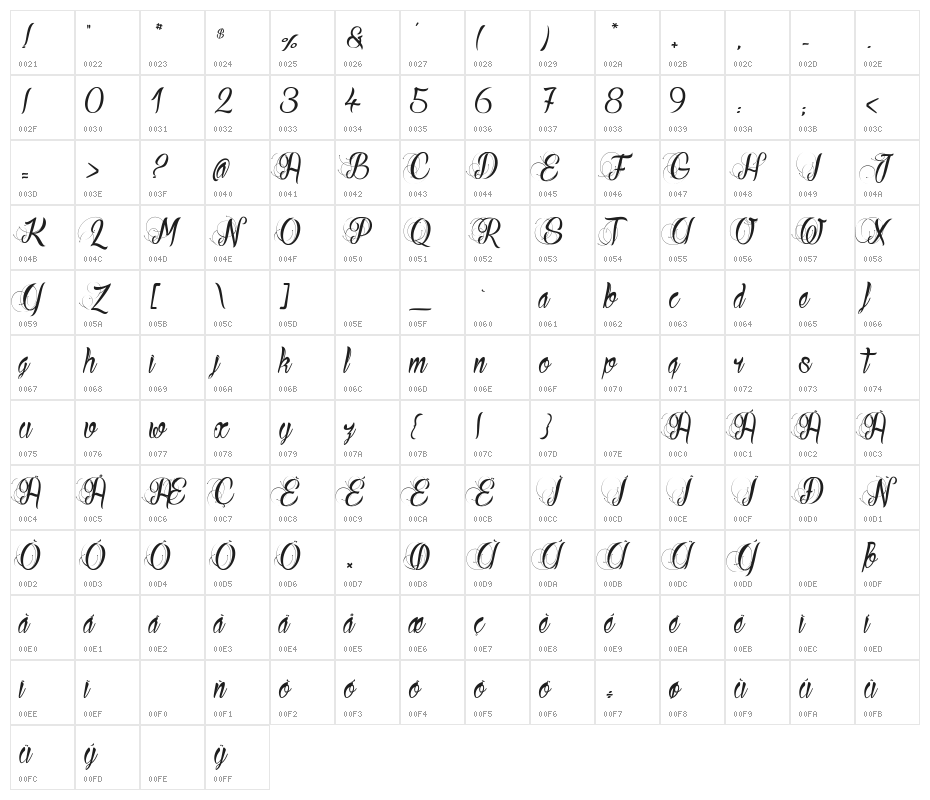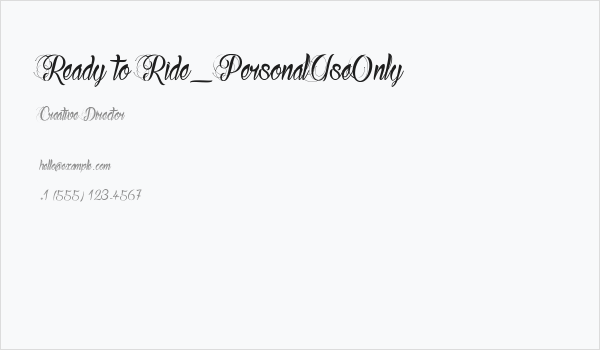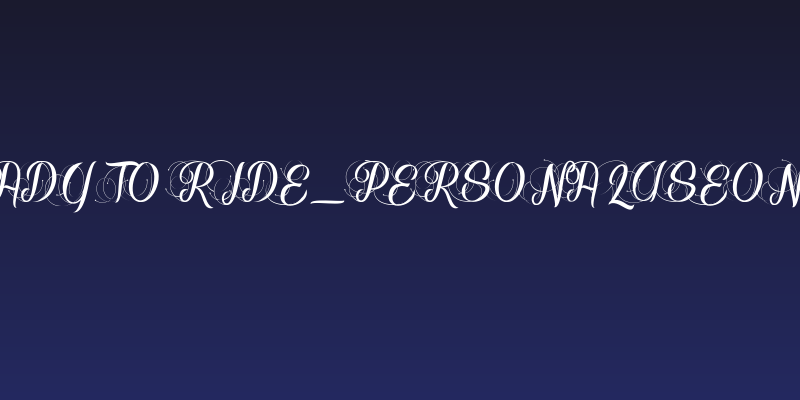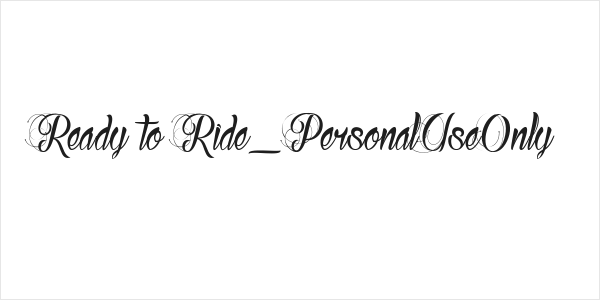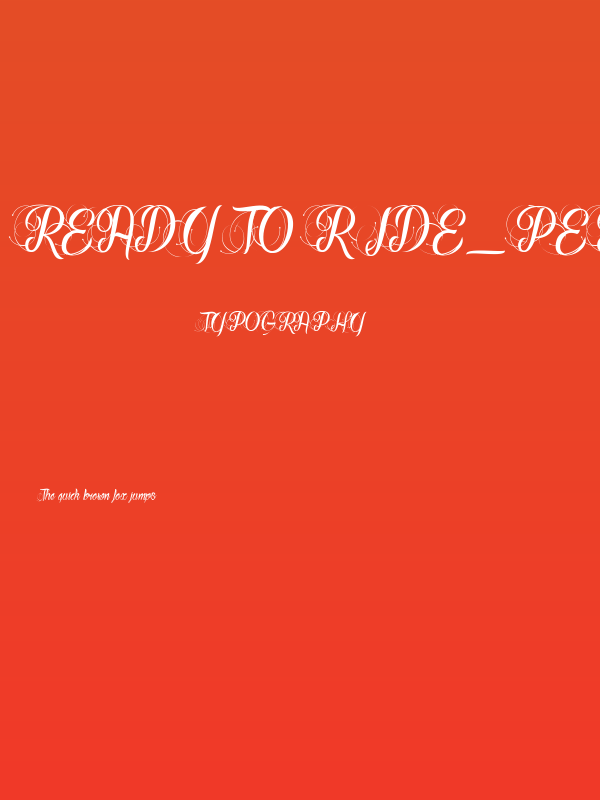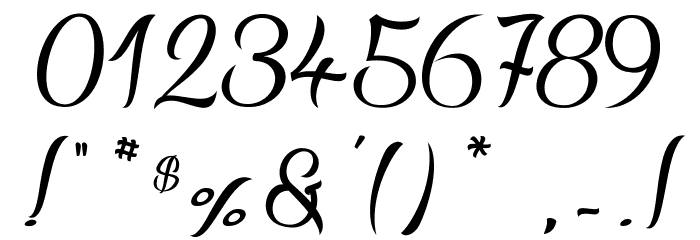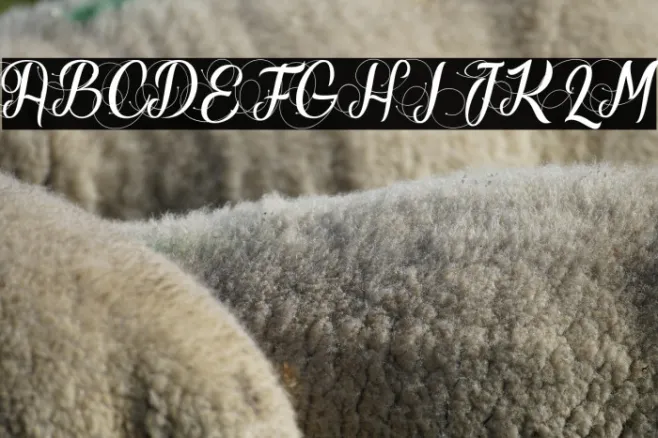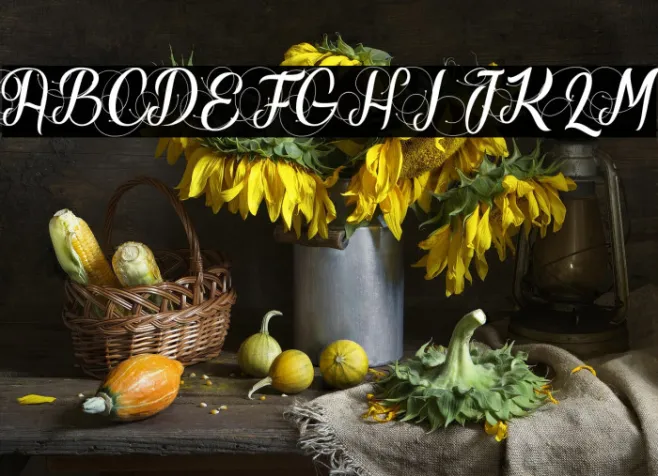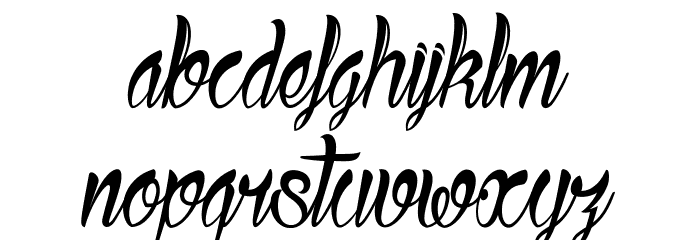
Ready to Ride_PersonalUseOnly Font
Ready to Ride_PersonalUseOnly Description
This font features an elegant and decorative script style with intricate swirls and flourishes, particularly in the uppercase letters. The lowercase letters maintain a flowing, cursive appearance, adding a touch of sophistication and grace. The numerals are bold and slightly condensed, complementing the ornate style of the alphabet. Special characters are designed with similar decorative elements, ensuring consistency throughout the typeface. The overall aesthetic is both artistic and refined, making it suitable for projects that require a touch of elegance and creativity.
| Proposed Projects | Ideal for wedding invitations, luxury branding, greeting cards, and decorative headlines. |